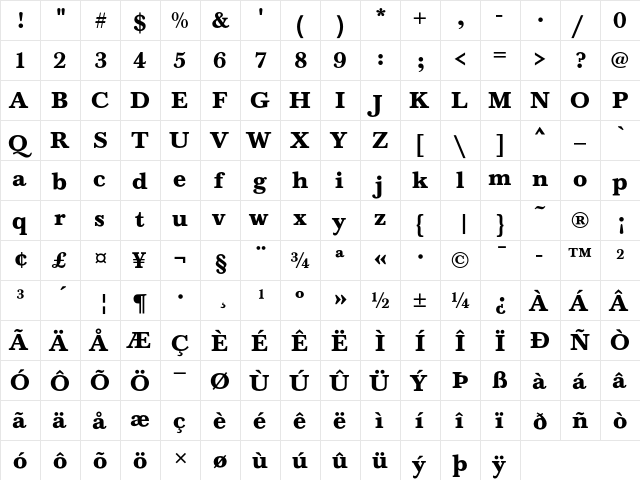
Baskerville T Bold
Design Context for Baskerville T Typeface
Baskerville T offers clean, dependable letterforms without strong stylistic allegiance, making it a practical choice for designers who need flexibility. Its bold stroke weight gives it real presence on the page.
Pro Tip: Pair Baskerville T with a font of contrasting weight or personality to build a more expressive typographic hierarchy.